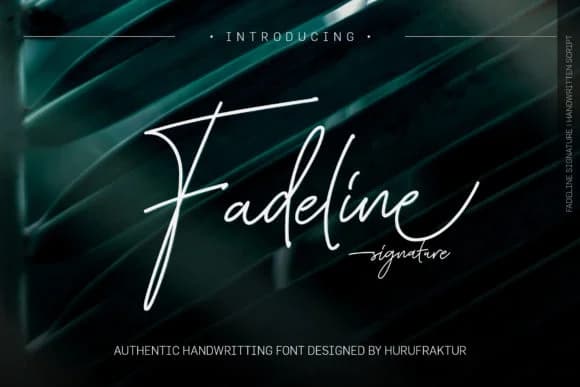
There's something both casual and commanding about this typeface. Fadeline, created by hurufraktur, is a hand-drawn script that captures the energy of quick brushwork without sacrificing legibility or visual weight. It sits comfortably between sketch and refinement, making it feel authentic without veering into amateur territory.
This font really shines in wedding invitation suites where the couple wants personality without over-the-top flourishes, boutique product branding for skincare or home goods labels, event posters and signage that call for a human touch, and greeting card layouts that need genuine warmth. You can also deploy it as a display headline on lifestyle blogs or small business websites where the brand voice is approachable and real. The letterforms feel loose enough to seem hand-made, yet the consistent weight throughout keeps everything readable, even at smaller sizes or on printed materials. This balance makes it work across both digital and print applications without losing impact.
Fadeline Font is a script font that shines as a display or heading face. Pair it with a clean sans-serif or serif font for body text β the contrast creates a clear hierarchy while the two styles stay balanced and easy to read.